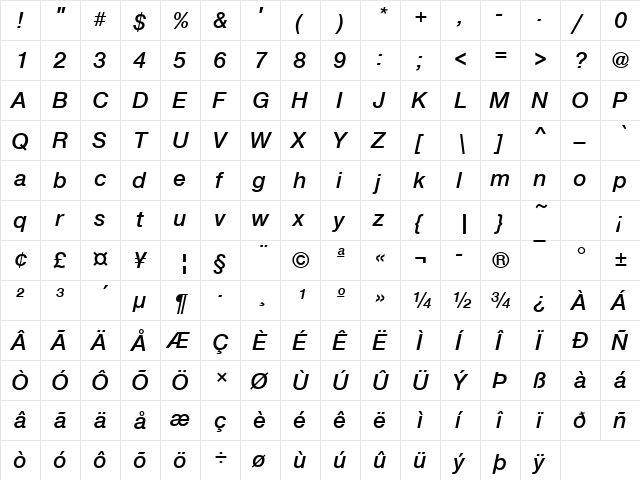
NimbusSanNovTSemBol Italic
Design Context for NimbusSanNovTSemBol Typeface
NimbusSanNovTSemBol is a composed and adaptable typeface that performs quietly and consistently across a wide range of design contexts. Its italic angle brings a sense of urgency and motion to the letterforms.
Pro Tip: Use NimbusSanNovTSemBol for emphasis, pull quotes, and subheadings where its slanted energy can add rhythm to the layout.